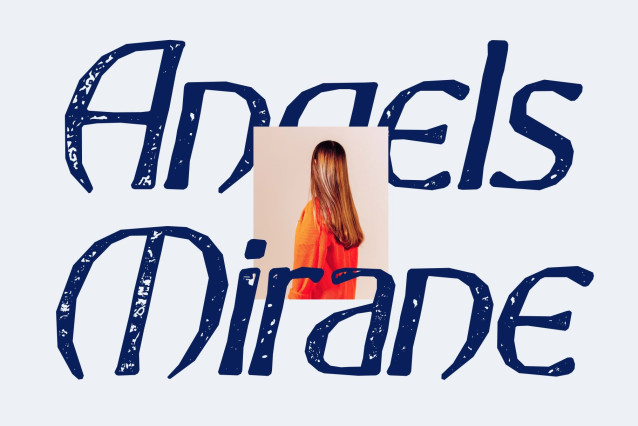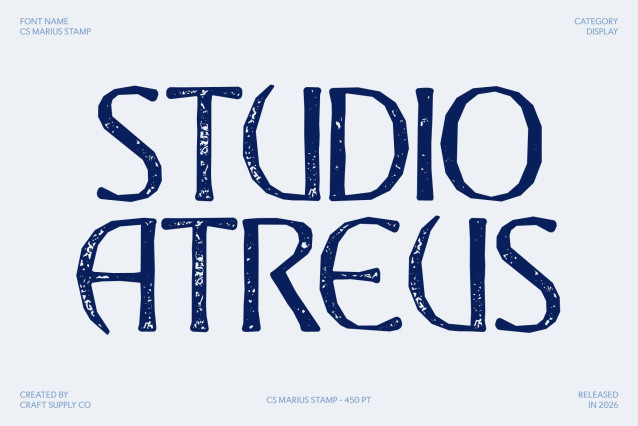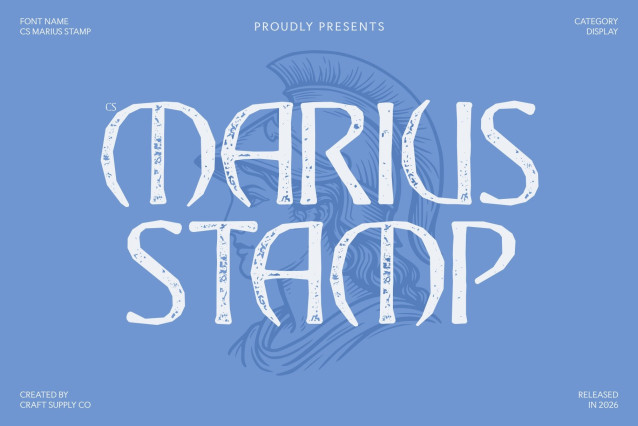
CS Marius Stamp Font
CS Marius Stamp – Classical Serif with Timeless Greek Elegance
Classical Inspiration with Contemporary Refinement
This is a modern display serif font inspired by the grandeur of Greek-style lettering, enhanced with a subtle stamp texture that adds warmth and character. It combines majestic classical influence with clean contemporary execution, creating a typeface that feels both historic and modern.
Architectural Serifs with Textured Depth
Bold, well-proportioned serifs echo the strength and harmony of ancient architecture, while the stamped effect introduces a gentle vintage finish. This blend of precision and texture gives the font a refined yet expressive personality, balancing authority with artistic charm.